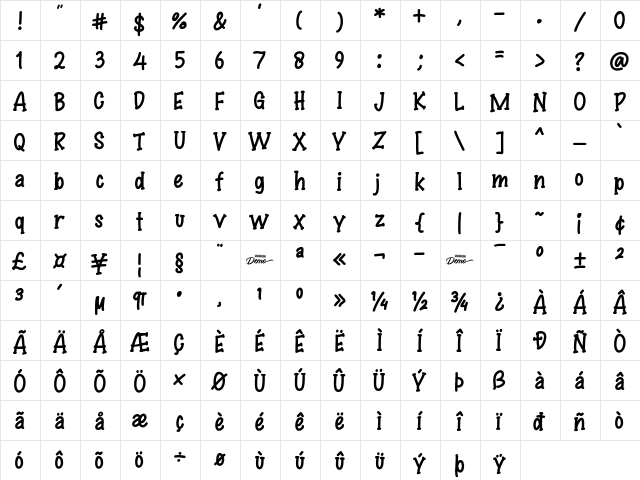
Sweet Childish Demo Regular
| Designer | Fuad Hasan |
Design Context for Sweet Childish Demo Typeface
Sweet Childish Demo trades formality for fun, with bouncy, characterful letterforms that bring warmth and energy to any project.
Great for children's books, toy packaging, family event branding, and casual consumer-facing design.
Font Pairing: Pairs well with a rounded or humanist sans for body copy, maintaining the friendly tone without relying on Sweet Childish Demo to carry extended reading.
Pro Tip: Avoid using Sweet Childish Demo for long passages of text — it works best for headlines, labels, and short calls to action.